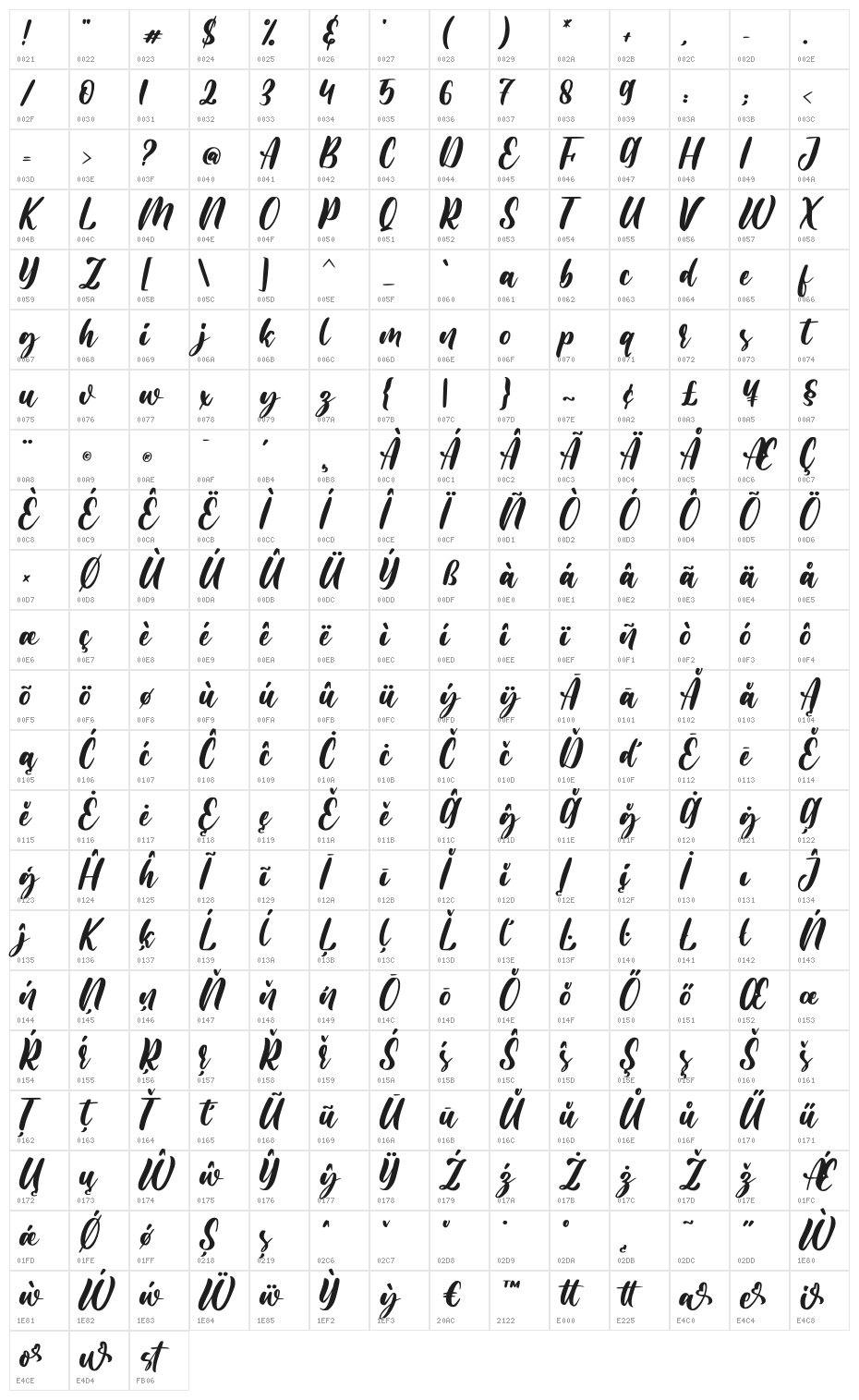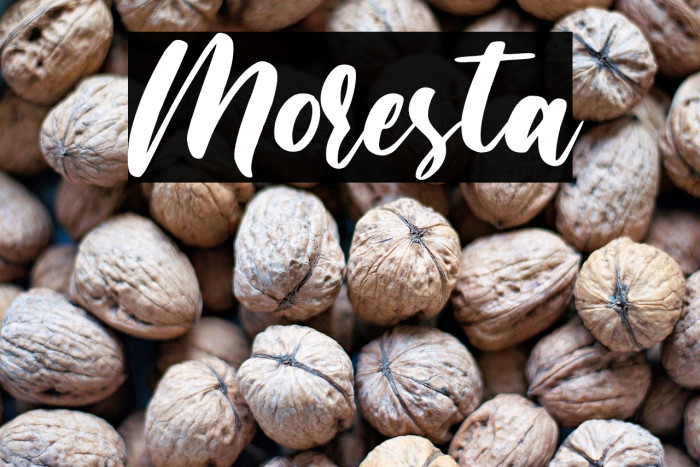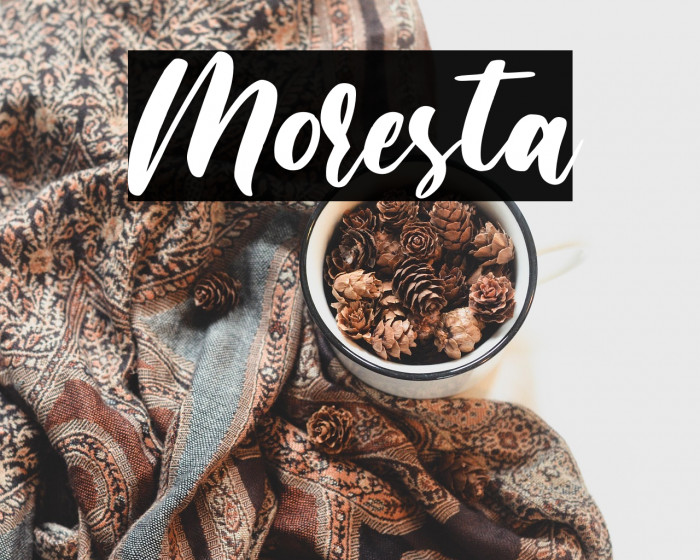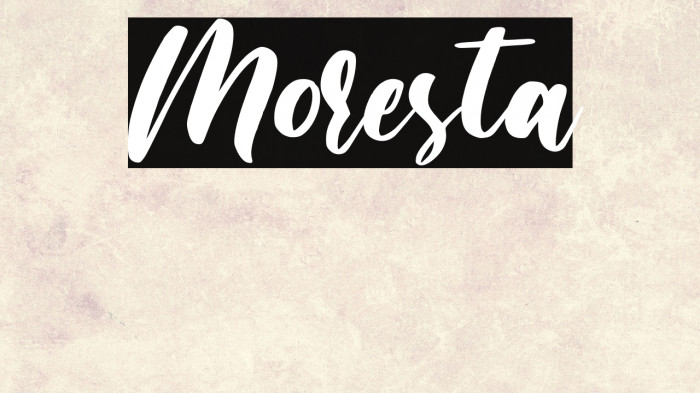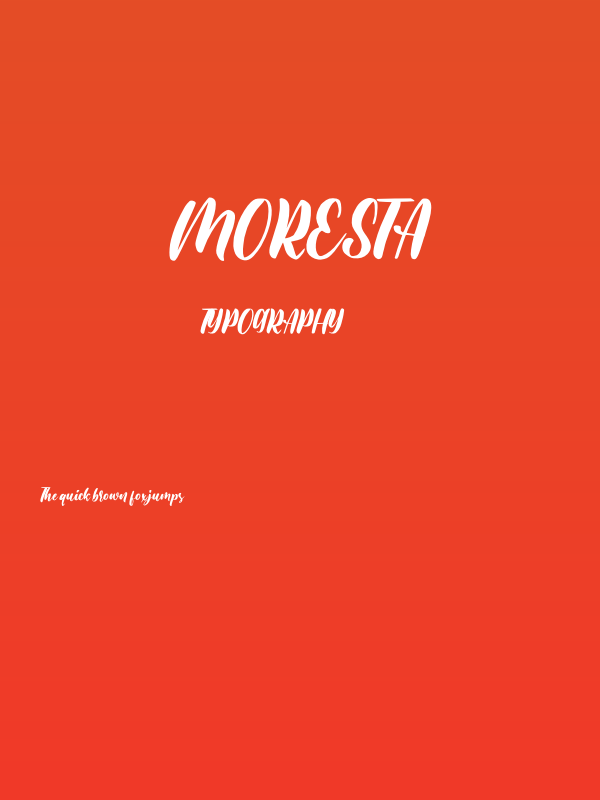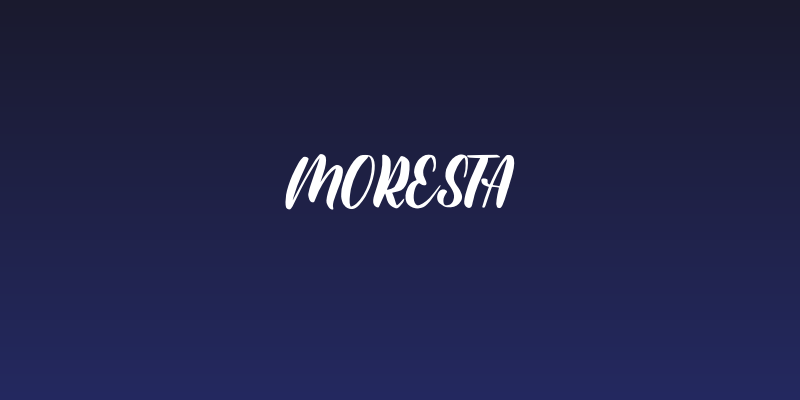
Moresta Font
Moresta Description
This font features a bold and expressive script style, characterized by its fluid and dynamic strokes. The uppercase letters exhibit a strong presence with their sweeping curves and elegant flourishes, while the lowercase letters maintain a consistent flow, enhancing readability. The numerals are crafted with a similar flair, ensuring they complement the overall aesthetic. Special characters are thoughtfully designed to match the font's energetic style, making it versatile for various creative applications. The font's boldness and artistic flair make it ideal for projects that require a touch of personality and elegance.
| Use Case | Logos, Headlines, Invitations |
| Proposed Projects | Ideal for branding, invitations, posters, and any design requiring a personal touch. |